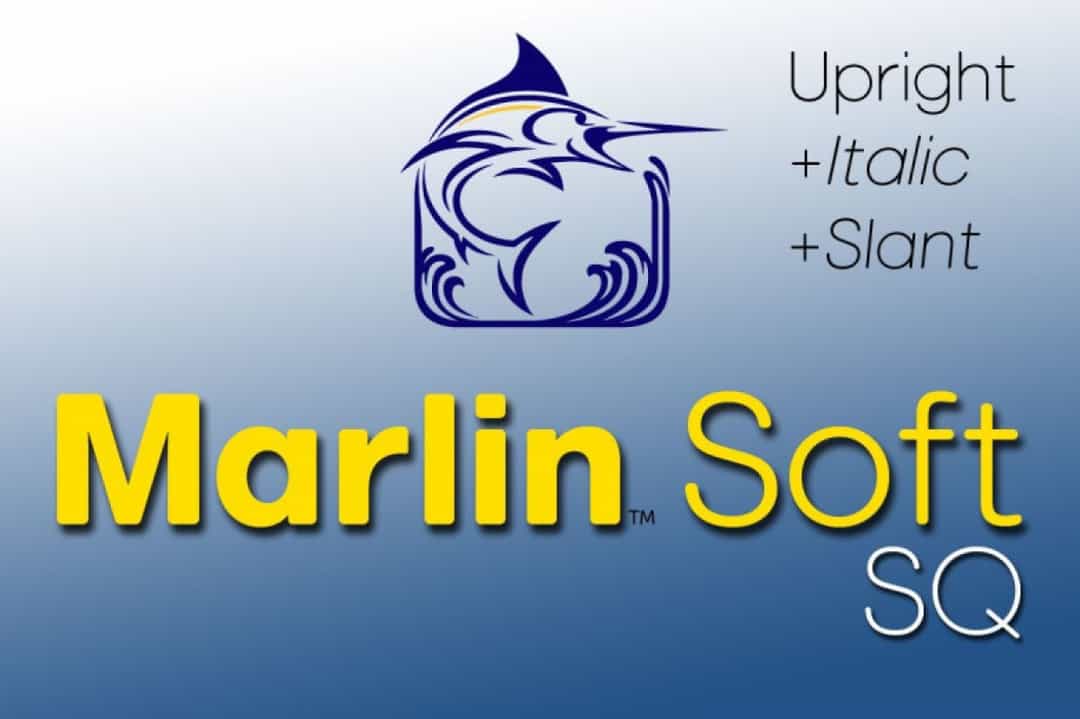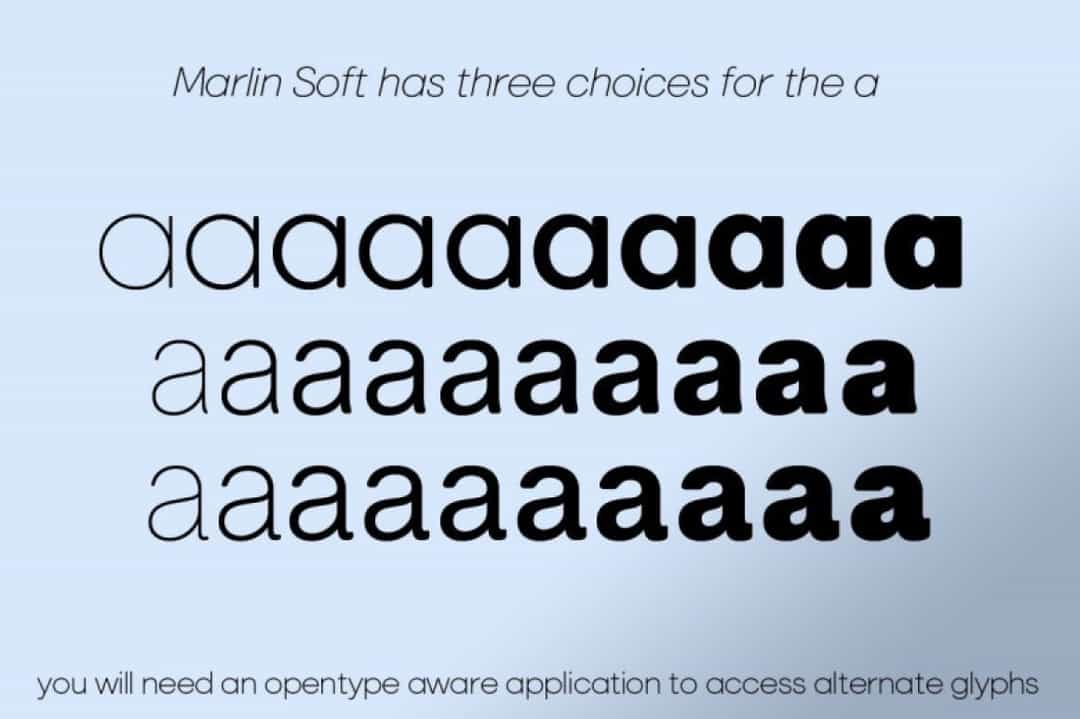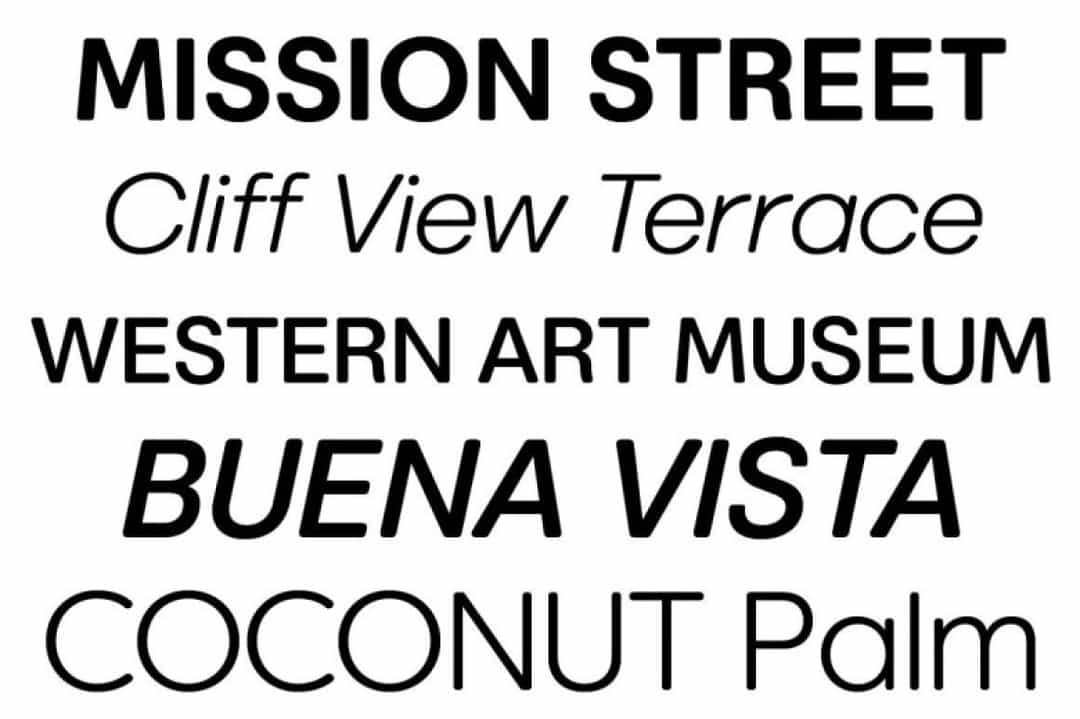
Marlin Soft is an italic alternative with rounded corners derived from the Marlin Geo font family and offers two italic types – regular (with 12 degrees of angle), as well as its more narrow counterpart, with six degree angle italics for headlines or signs requiring the appearance of italics, but limited horizontal space.